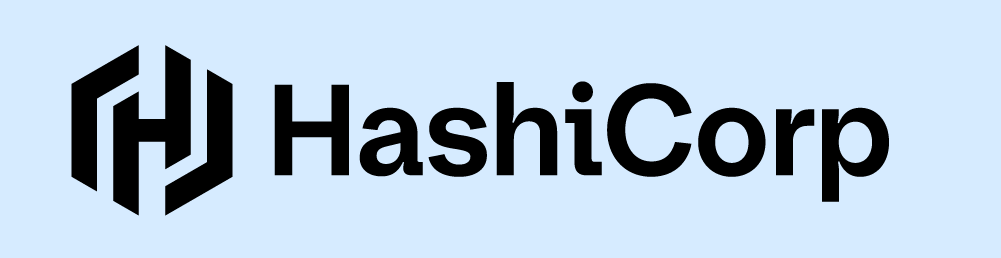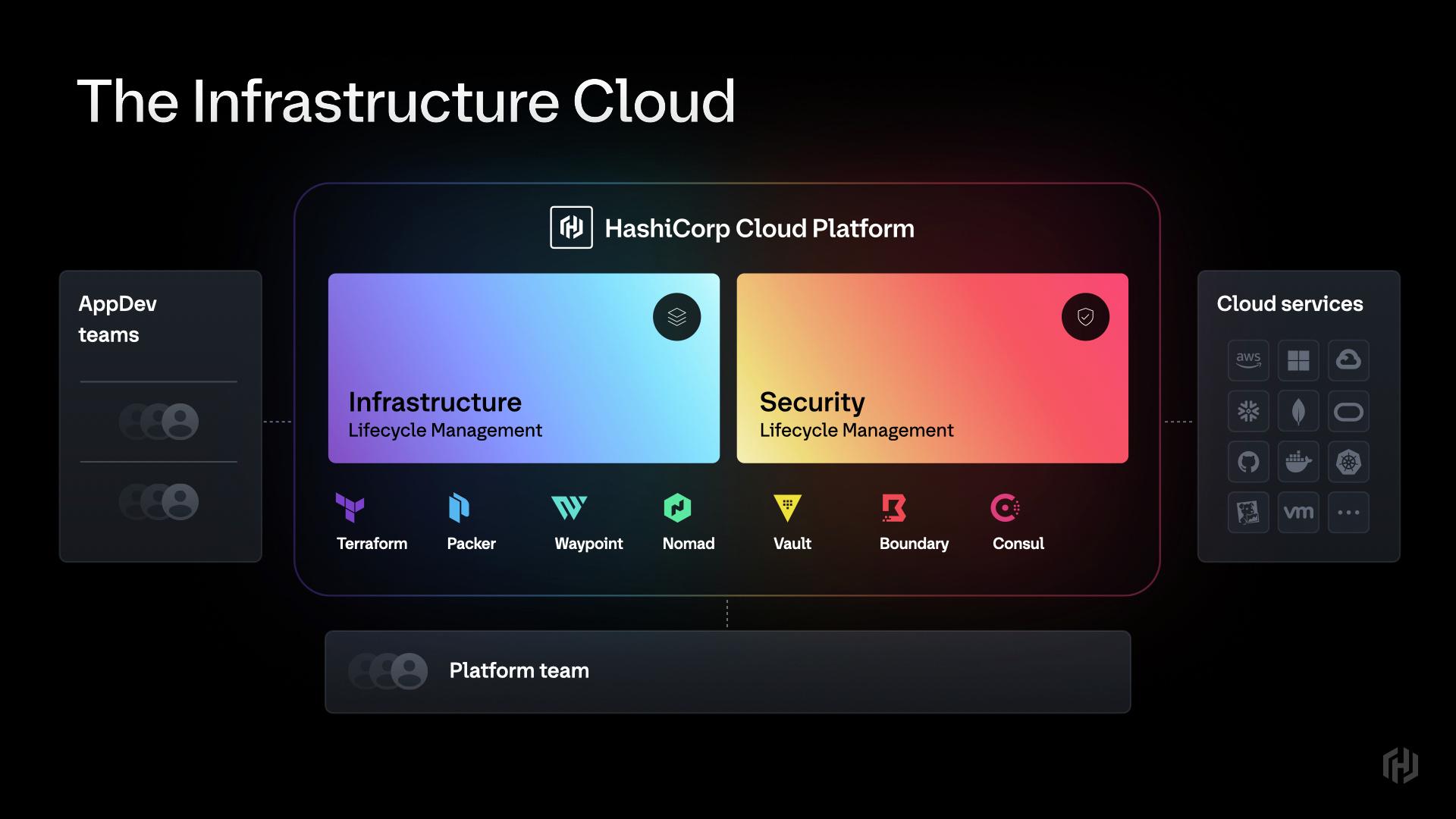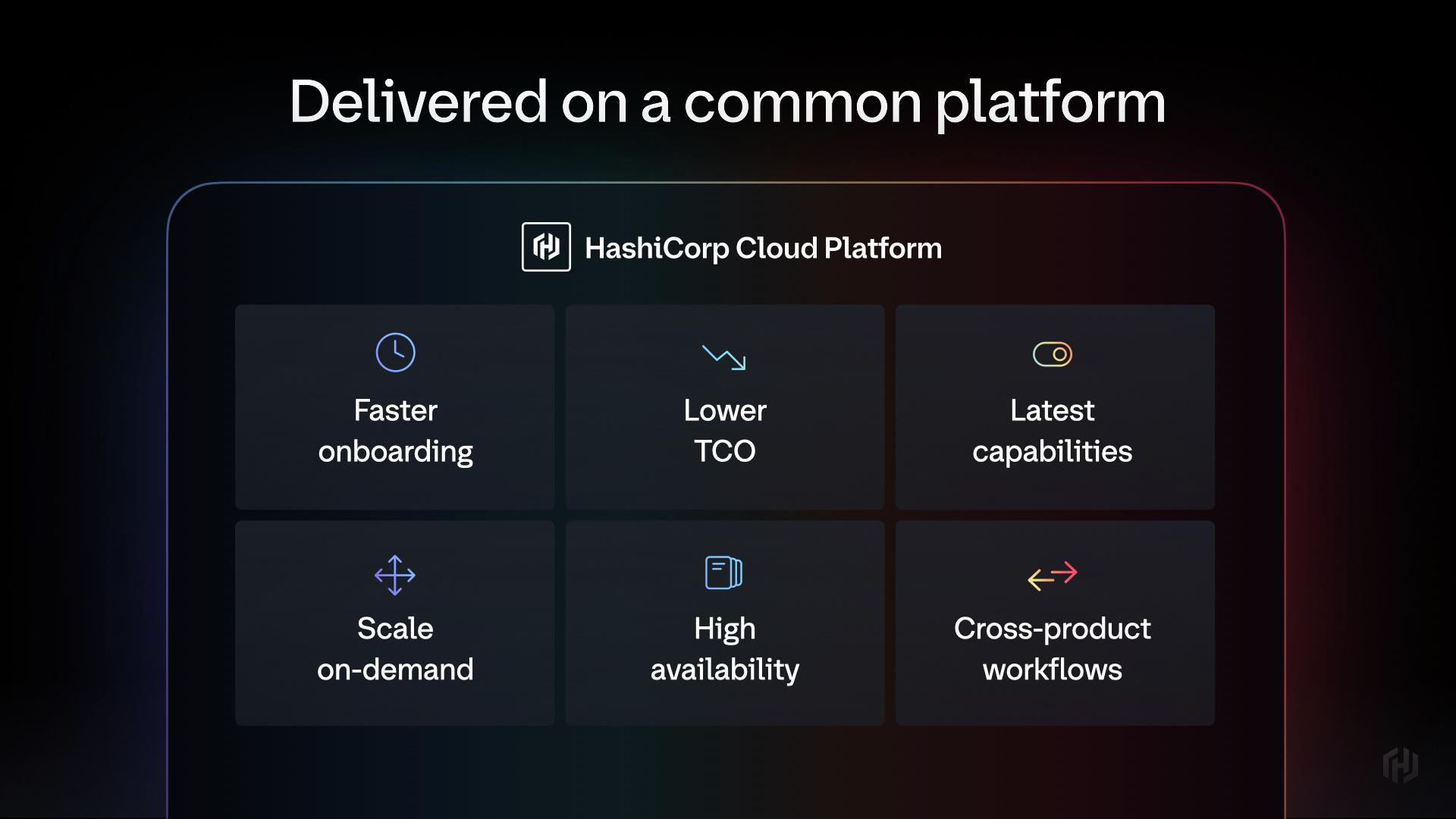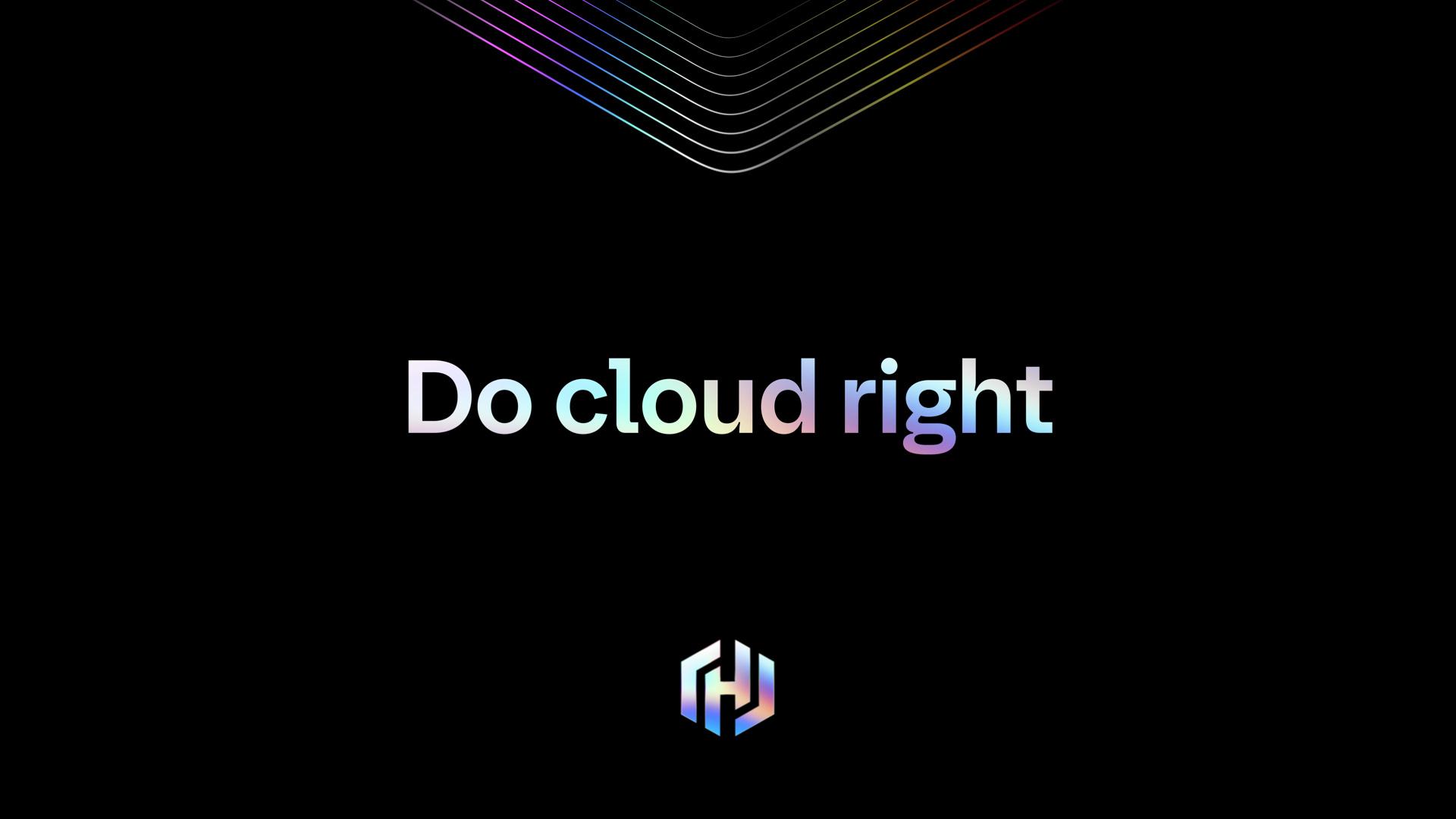
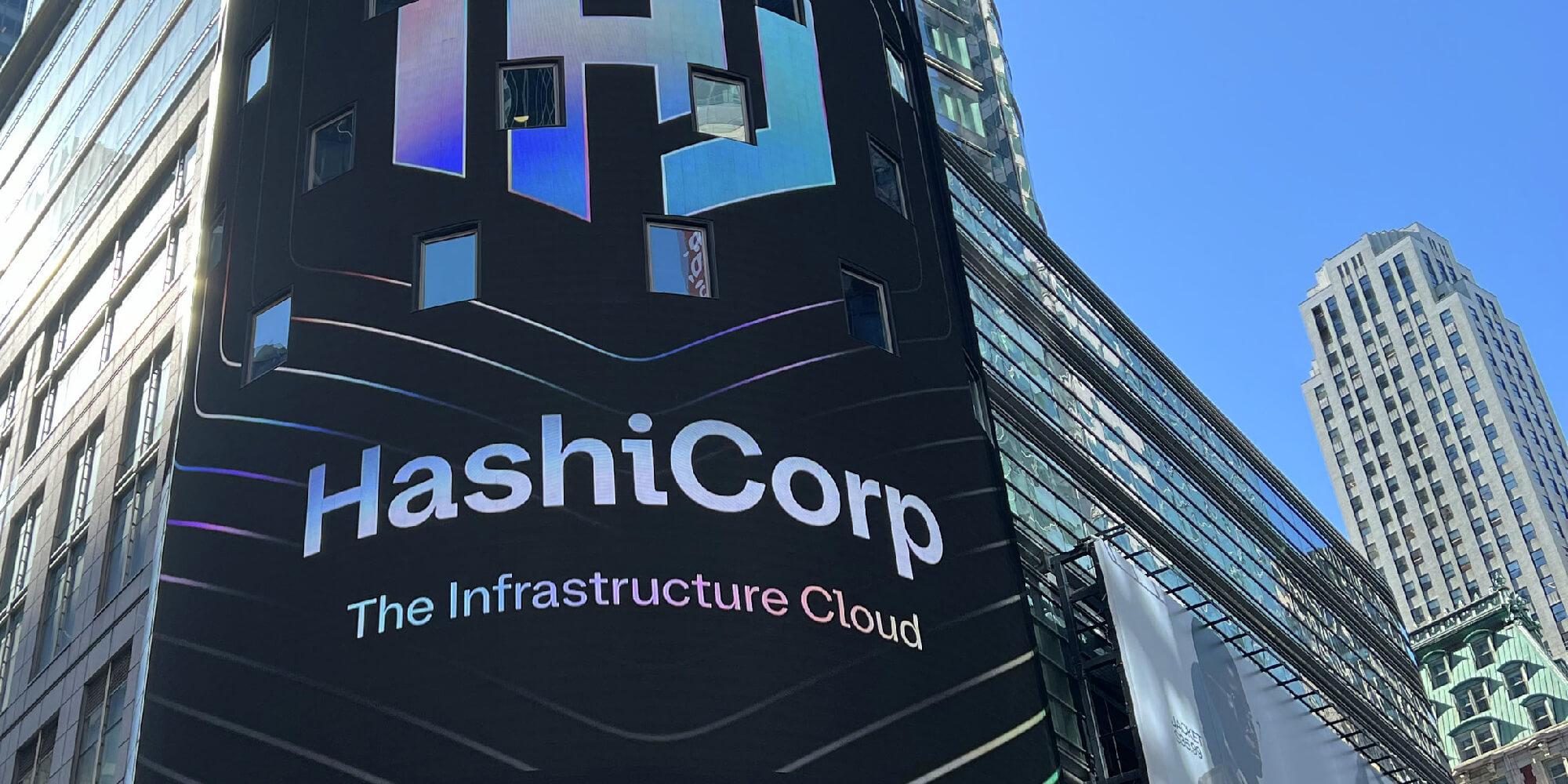
Before the redesign, HashiCorp relied on two contrasting typefaces: Klavika and Gilmer. Klavika’s narrow, straight-edged design gave their logo and product wordmarks a dated, tech-heavy appearance, while Gilmer’s geometric style caused readability issues in long, technical words like “infrastructure.” These conflicting typefaces resulted in an inconsistent visual language among HashiCorp's various offerings.
XYZ Type collaborated closely with HashiCorp’s internal team to replace these fonts with a cohesive, custom typeface, aiming to reflect the company's reputation for innovation while preserving its approachable tone. Jesse Ragan and Ben Kiel led the design effort, presenting several initial concepts, which were refined into a working prototype. Type designer Inga Plönnigs later took over to refine and finalize the design.
“XYZ gave me a lot of creative freedom to add my personal touch to the typeface,” says Plönnigs. “Balancing unique character with brand-appropriate neutrality was the challenge I enjoyed the most, particularly in integrating ink traps without letting them dominate the design.”
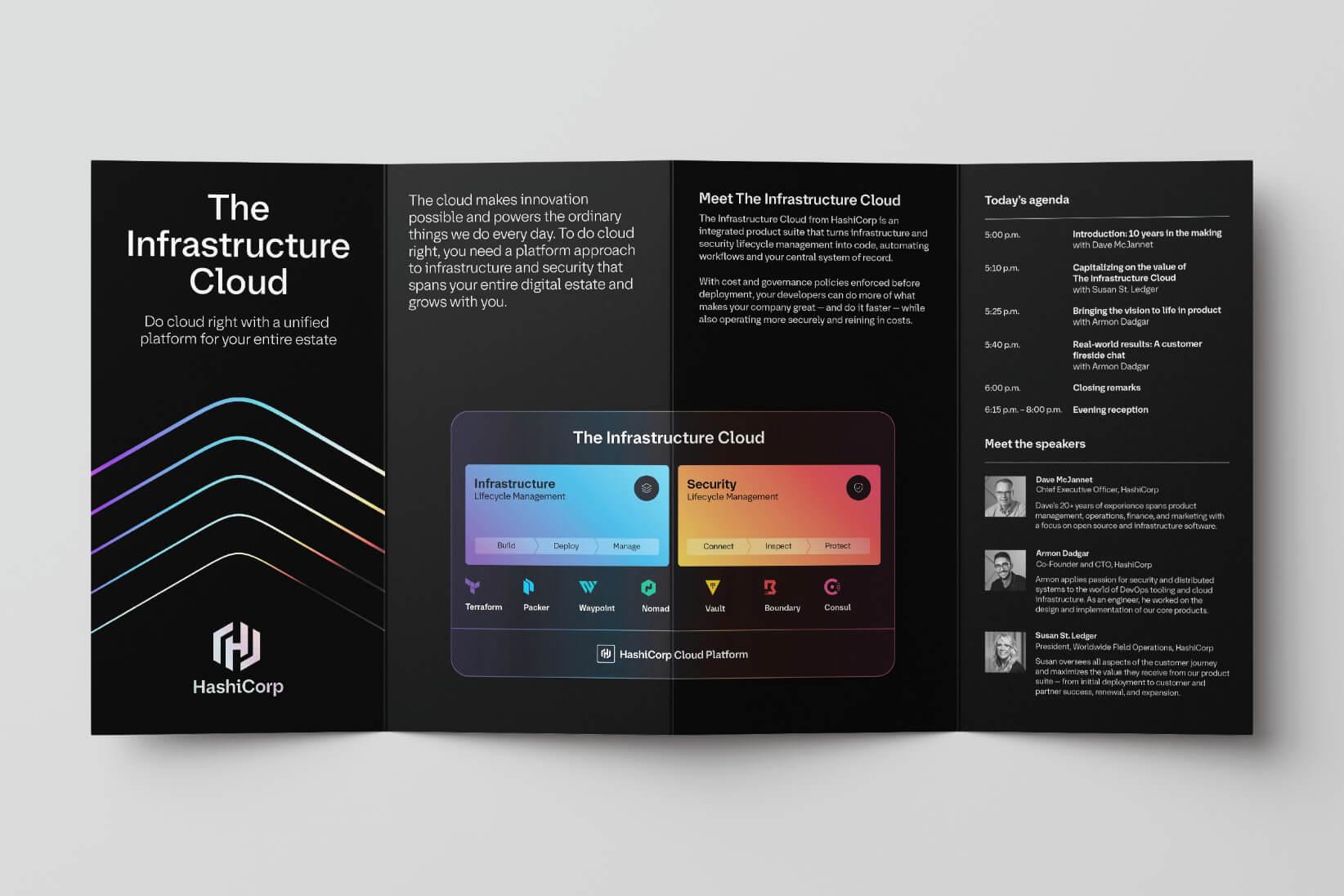
The custom typeface had to adapt to various uses—from branding to product labels to article headlines—while conveying both technical precision and a human touch. Drawing on neogrotesque design principles, XYZ Type crafted a typeface that balances crisp geometry with organic curves, ensuring it feels both contemporary and approachable.
Details like the curves of the letters G, a, and e were softened, allowing for a more fluid, natural appearance. By avoiding rigid, grid-like structures, the typeface captures a more human element while still reflecting HashiCorp's technological roots. Playful touches, such as the double-story g and the distinctive curve of the capital R, provide a nod to typographic tradition while keeping the design fresh.
—Coon Lam, Senior Director at HashiCorp’s Brand Studio.
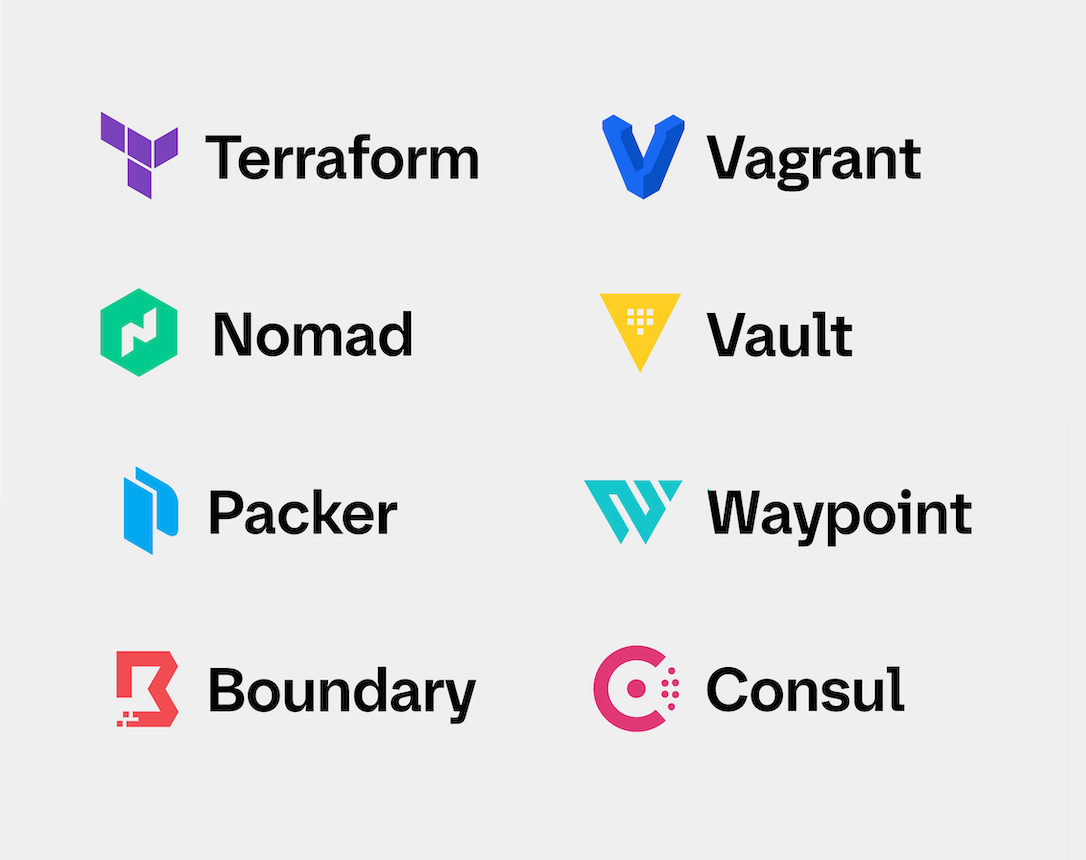
The new typeface was quickly put to use for HashiCorp’s various sub-brands.
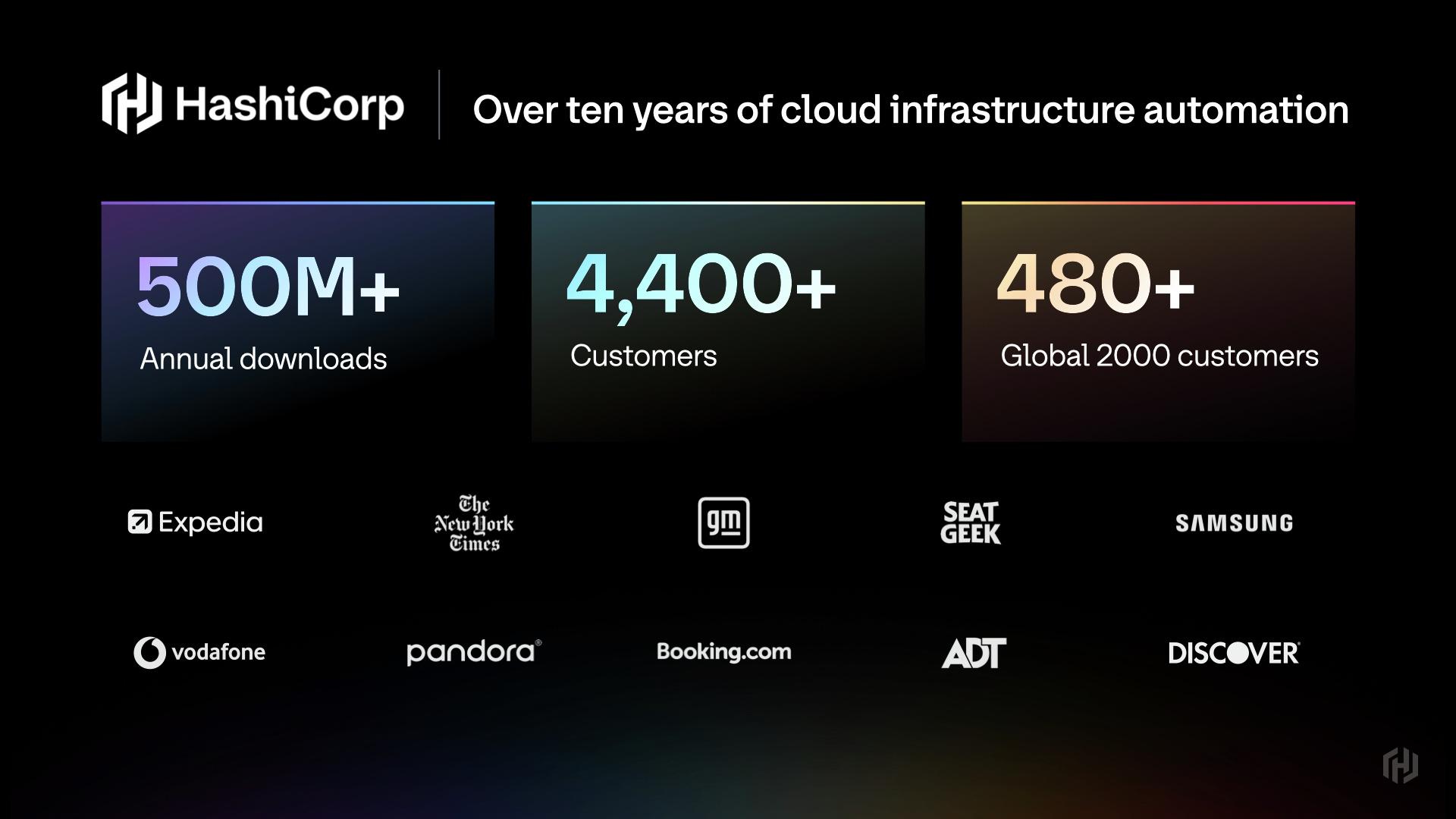
“The prominent crossbar at the center of the symbol is reflected in the unexpected bridges at diagonal joins of A, k, w and y. The flat strokes of J, Q, a, i and t echo that horizontal movement, integrating a sense of flow into a cohesive visual language.” — XYZ Type
HashiCorp’s strong developer community informed key elements of the design. Developers rely on clear, distinct letterforms to avoid confusion in coding environments, where a simple misread character can cause major issues. To accommodate this, XYZ Type ensured that traditionally similar characters—like i, l, and 1—were clearly differentiated. This practical approach to character clarity became a defining feature of the design, with the alternate i in the main logotype showcasing this thoughtfulness.
Ink traps, originally used in print to reduce ink buildup, became a key aesthetic feature in HashiCorp’s custom typeface. Rather than simply functional, these cuts were designed to add visual interest and dimension, turning them into a subtle but striking design element. The ink traps help balance the technical and organic aspects of the typeface, creating a distinctive, engaging appearance that feels engineered without being overbearing.
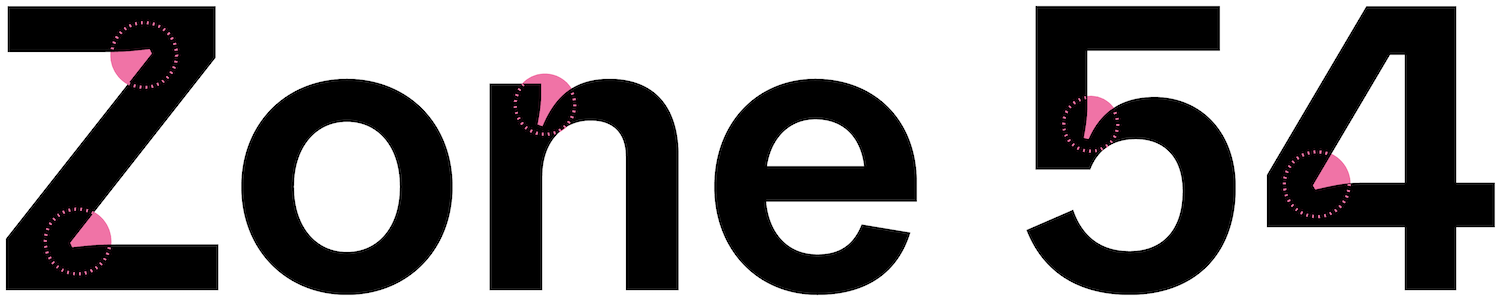
“[The ink traps] emphasize the precise nature of the typeface in a visually engaging way, and, as a treat, they also work for you when you don’t notice them.” — XYZ Type
When HashiCorp launched The Infrastructure Cloud in 2024, their new custom typeface was front and center, helping to unify the branding across their extensive product ecosystem. From wordmarks to internal communications, the new typeface became an integral part of HashiCorp’s visual identity, reinforcing their image as a company rooted in both trust and innovation.
XYZ Type’s custom typeface seamlessly integrated HashiCorp’s needs, blending technical expertise with a friendly, human quality. The result is a versatile, distinctive font that unifies the brand's message and elevates its visual identity across all platforms.